Andesite Regular ($15 value): An Art Deco font based on the typeface Plaza. Andesite has a distinct retro feel to it, and can be used in a variety of design projects, including invitations, announcements, and logos.
Bellerose Light ($15 value): A classy Art Deco font based on the typeface Capone, and Harris Design's most popular font. Bellerose Light is used by designers and agencies all over the world, and has been used in the creation of retail packaging, children's books, and website designs, among others.
EarthFont One ($18 value): Contains the most complete collection of recycling, environmental, and ecological symbols assembled into a single font. Several of the symbols in EarthFont One are used with permission, including the steel recycling logo (Steel Recycling Institute) and the "Printed with Soy Ink" logo (Iowa Soybean Association).
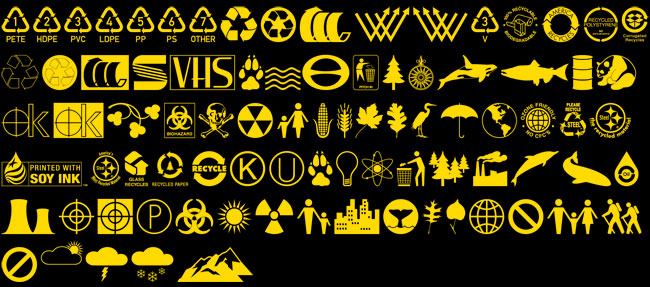
Harris Modern Extended ($18 value): A brand new original typeface. Harris Modern Extended took over four months to develop, has a complete character set, and is fully kerned by hand. It's perfect for logos, titles, and anywhere a clean and modern look is needed.
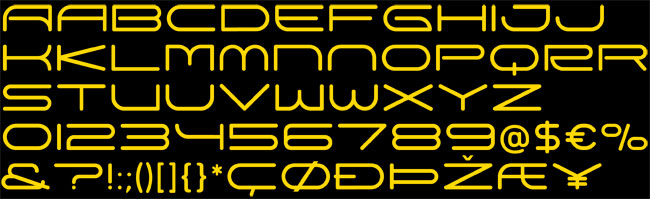
Mazama Regular ($18 value): A beautiful all-caps display font with several alternate swash characters. Mazama is perfect for headlines, magazine titles, logos, or anywhere you might need something elegant that stands out from the crowd.
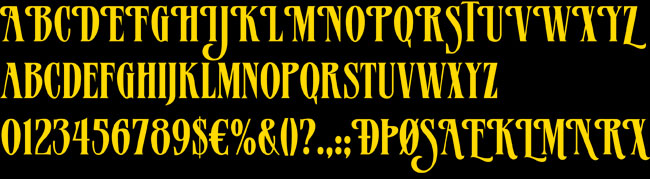
Pictograph One ($18 value): A great all-around collection of useful symbols and pictures with the graphic designer in mind. It includes symbols for law, real estate, credit cards, medical, travel, and more.
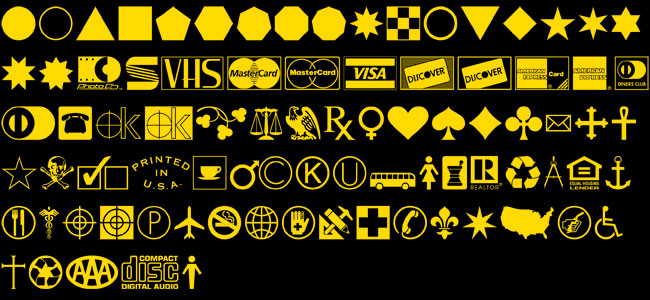
SignPix One, Two, Three, and Four ($18 value each): An extensive collection of all the iconic symbols you see on highways, in parks, and in recreational areas. SignPix One also includes the complete set of Defenders of Wildlife's animal viewing area symbols, used with permission. SignPix is recommended and used by the U.S. Fish & Wildlife Service as their graphics standard for signs and publications.